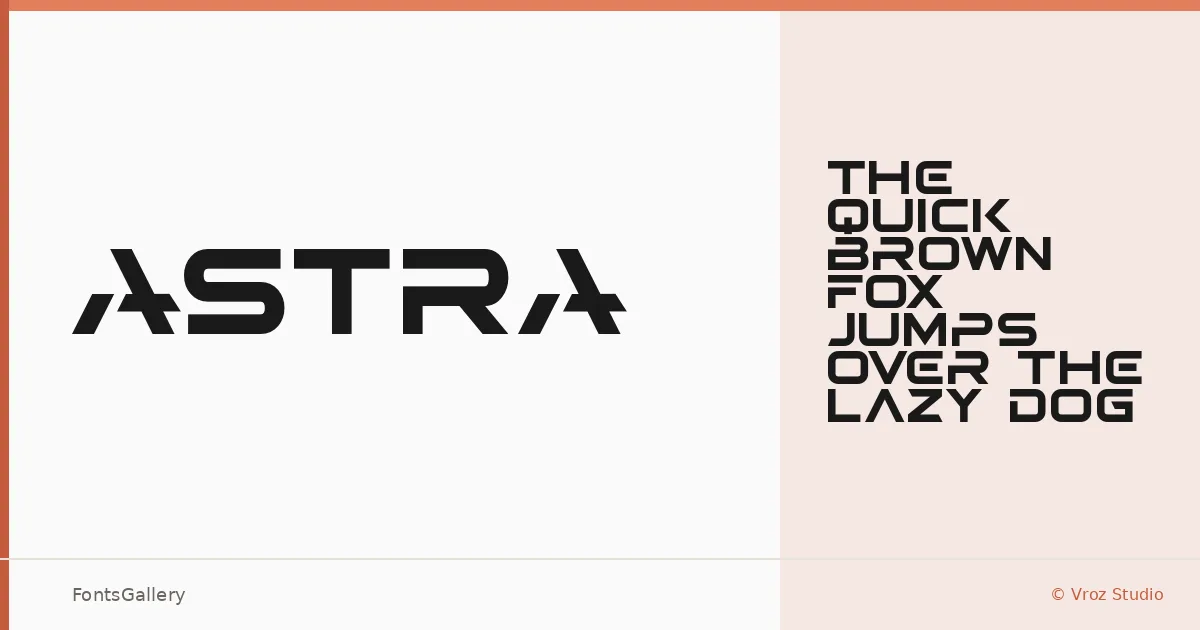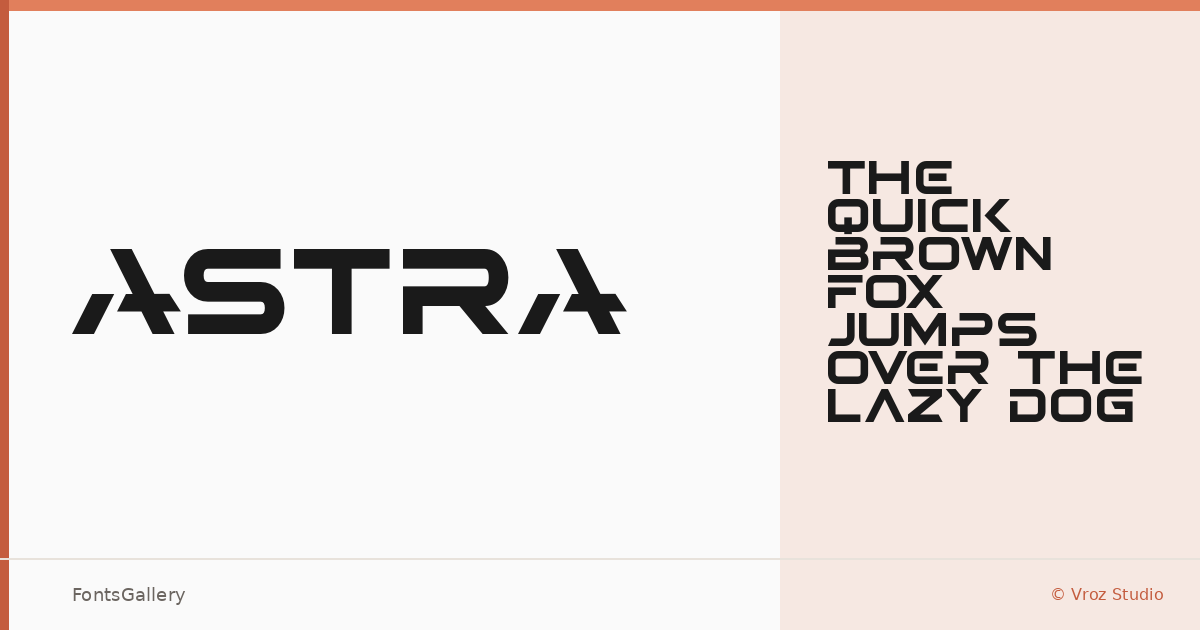
About ASTRA Font
There is a confident forward-lean to this display face from Vroz Studio — the kind of geometry that reads instantly at large sizes and holds its posture under pressure. The family ships as a single Regular cut in OTF format, so what you see is the complete offering: one well-considered weight built to carry a headline on its own terms.
The letterforms sit firmly in display territory — bold, futuristic, and modern without leaning into gimmick. The construction feels engineered rather than calligraphic, which gives it a professional authority suited to contexts where the type needs to project scale and intent. A single Regular style means the design relies entirely on form rather than a weight range, and the OTF format keeps it clean across any layout workflow.
It earns its keep in branding systems, poster headlines, logo lockups, and T-shirt graphics — anywhere the type needs to read from a distance and leave an impression. Vroz Studio's pairing suggestions lean toward the crisp and structured: Helvetica works as a steady neutral companion, while Aresink, Alexandria, Bizantheum, and Audex each offer different takes on a contemporary display-to-text relationship depending on the mood of the project.